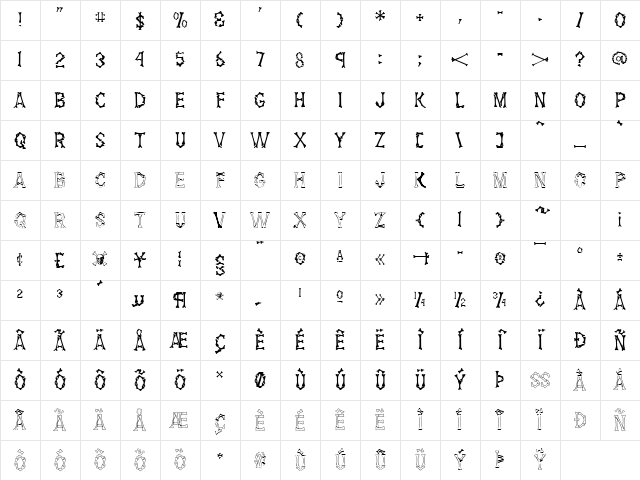
Dem Bones Regular Free Font
Dem Bones Regular
Design Context for Dem Bones
Dem Bones is a composed and adaptable typeface that performs quietly and consistently across a wide range of design contexts.